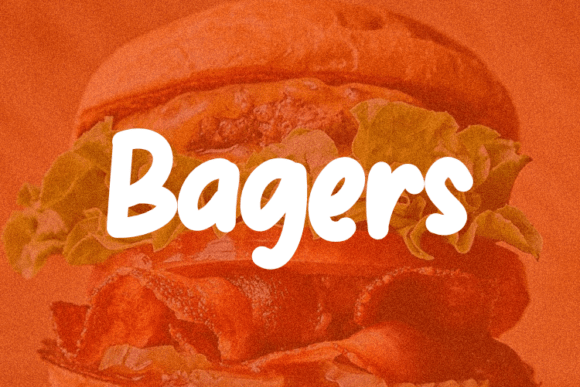
The Perfect Blend of Style and Versatility: Bagers Font
Have you ever sat at your desk, surrounded by scraps of paper and half-finished designs, only to be struck by a burst of creativity that leaves you breathless? That’s exactly what happened to us when we stumbled upon the Bagers Font – a game-changing typeface that’s about to take your designs to the next level.
As a designer, you know how crucial it is to find the right font to bring your vision to life. Bagers Font is perfectly suited for fashion design and merchandising needs, making it an indispensable tool for anyone looking to create stunning apparel creations and product designs. With its compatibility with all types of design software, Bagers Font is an ultra-accessible choice for both beginners and professionals alike.
Bagers Font Key Features
- Size: The font family consists of multiple weights, ranging from Thin to ExtraBold, providing flexibility for various design applications.
- Unique Characteristics: The font features a unique blend of modern and vintage elements, with intricate details and subtle texture, adding a touch of sophistication to any design.
- Language Support: Bagers Font supports a wide range of languages, including Latin, Cyrillic, and Greek scripts, making it a versatile choice for global design projects.
- Kerning and Ligatures: The font includes advanced kerning and ligature pairs, ensuring smooth text rendering and professional-looking typography.
Bagers Font Review
I recently had the chance to work with Bagers Font, and I have to say, it’s a solid addition to any designer’s toolkit. Here are some of the things that stood out to me:
- ✨ Unique character set: Bagers Font has a distinctive, quirky feel that’s perfect for projects where you want to add some personality.
- ✨ Good legibility: Despite its unconventional design, Bagers Font is surprisingly easy to read, even at smaller sizes.
- ✨ Supports multiple languages: Bagers Font includes a wide range of language support, making it a great option for global projects.
- ⚠️ Limited font weight options: Bagers Font only comes in a few different weights, which can limit its flexibility in certain design situations.
- ⚠️ Not ideal for body text: While Bagers Font is great for headlines and other display text, it’s not the best choice for large blocks of body text.
Overall, I’d say Bagers Font is a great choice for designers who want to add some visual interest to their projects. It’s not a one-size-fits-all solution, but it’s definitely worth considering for the right project.
The Bagers Font is ideal for:
- Designing modern and sleek logos
- Creating eye-catching headlines and titles
- Adding a touch of sophistication to business documents and presentations